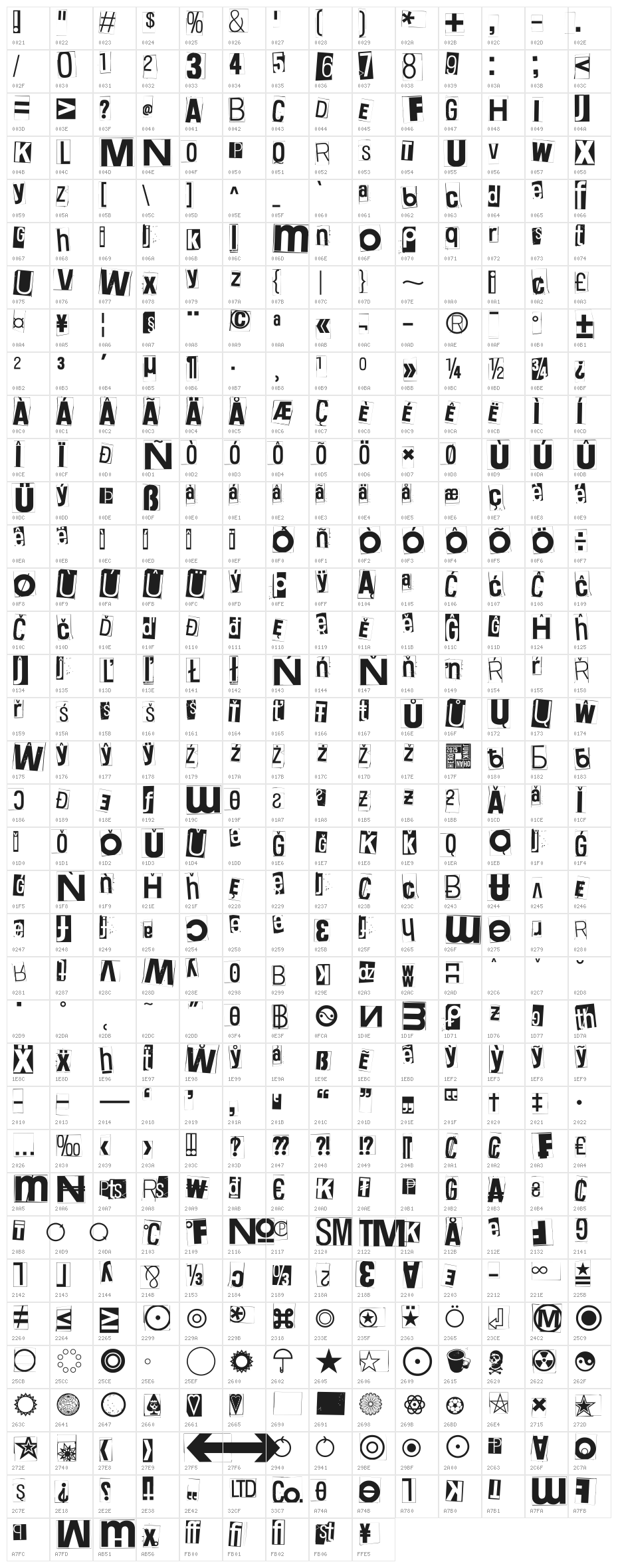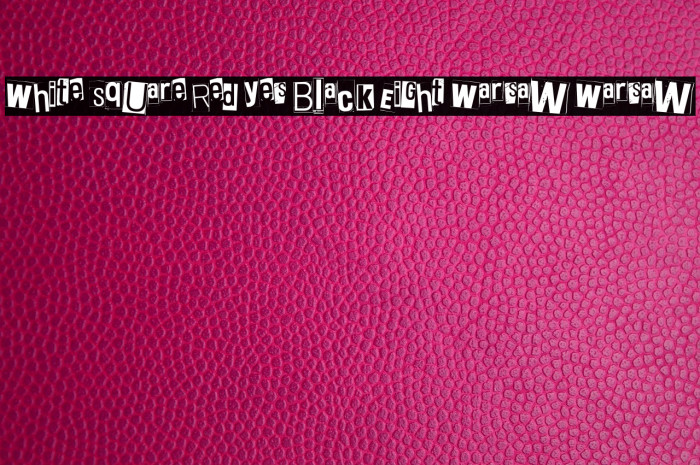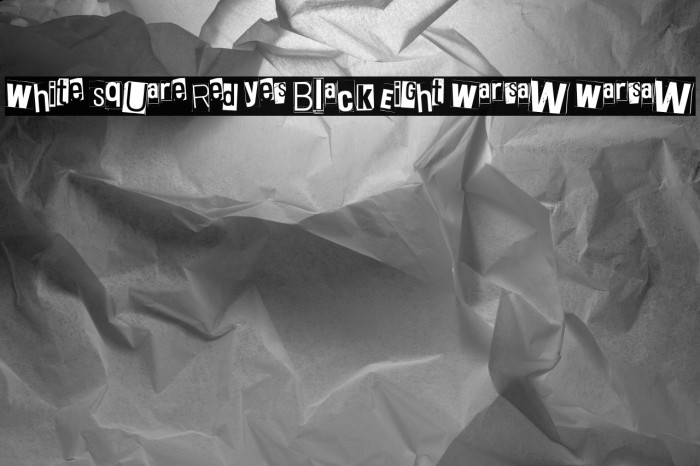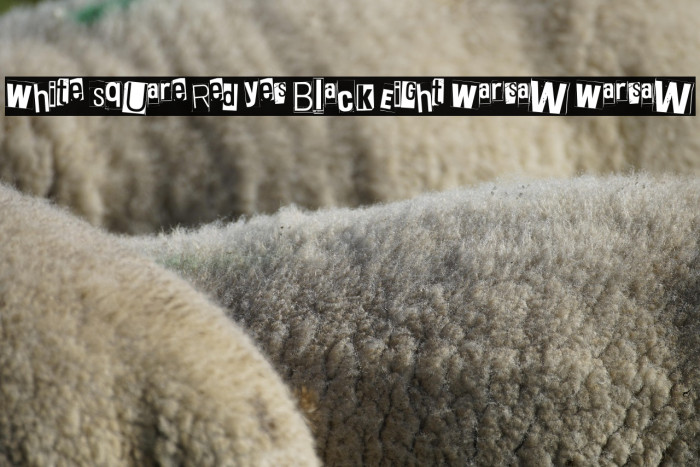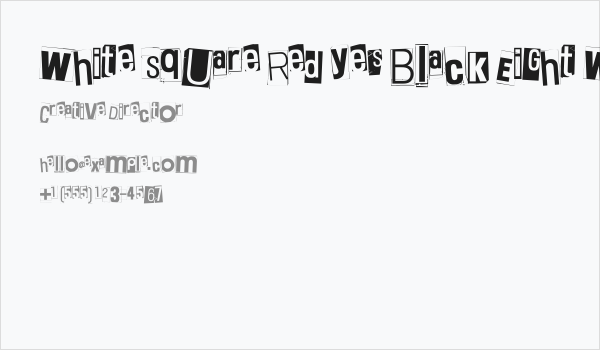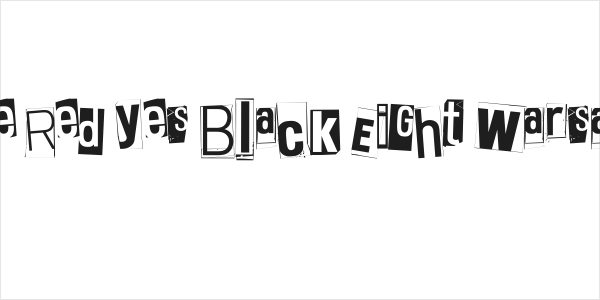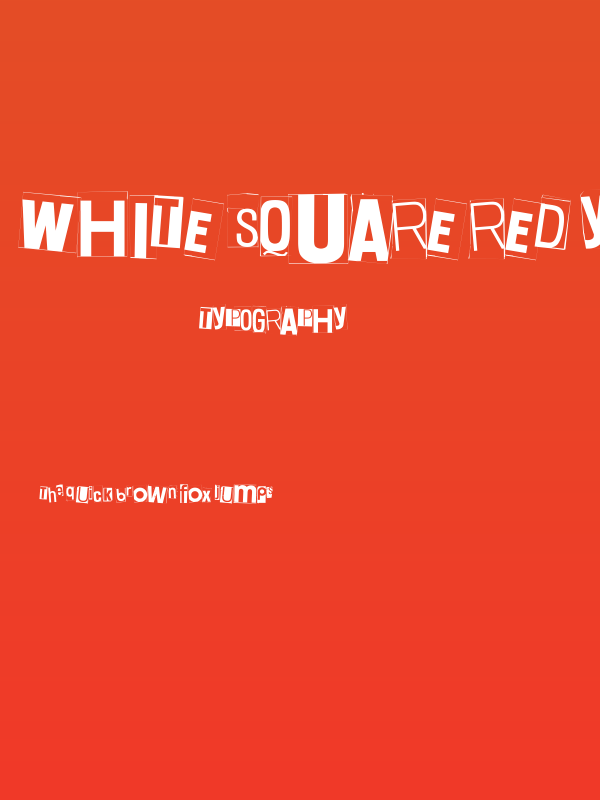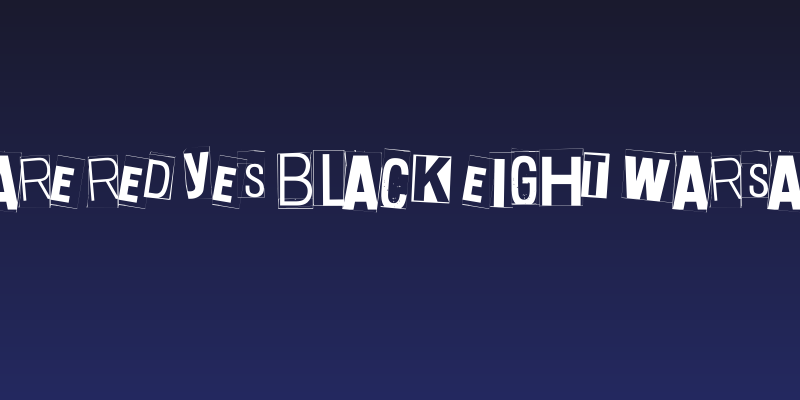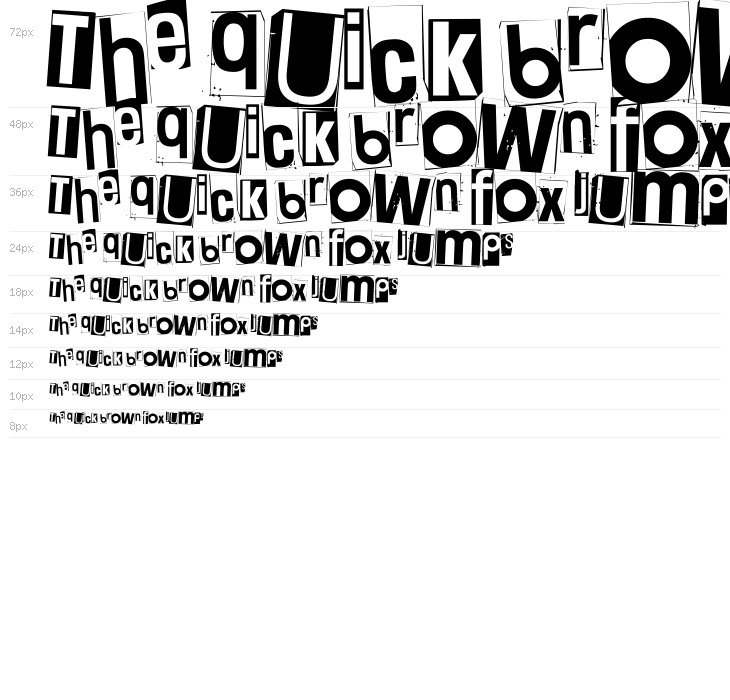
White Square Red Yes Black Eight Warsaw Warsaw Font
White Square Red Yes Black Eight Warsaw Warsaw Description
A collage-style font with letters and numbers cut from various sources, creating a ransom note effect. Each character has a unique style, contributing to a chaotic and eclectic appearance.
| Overall Style | Eclectic, Chaotic |
| Use Case | Creative projects, Artistic displays |
| Proposed Projects | Posters, album covers, creative projects. |